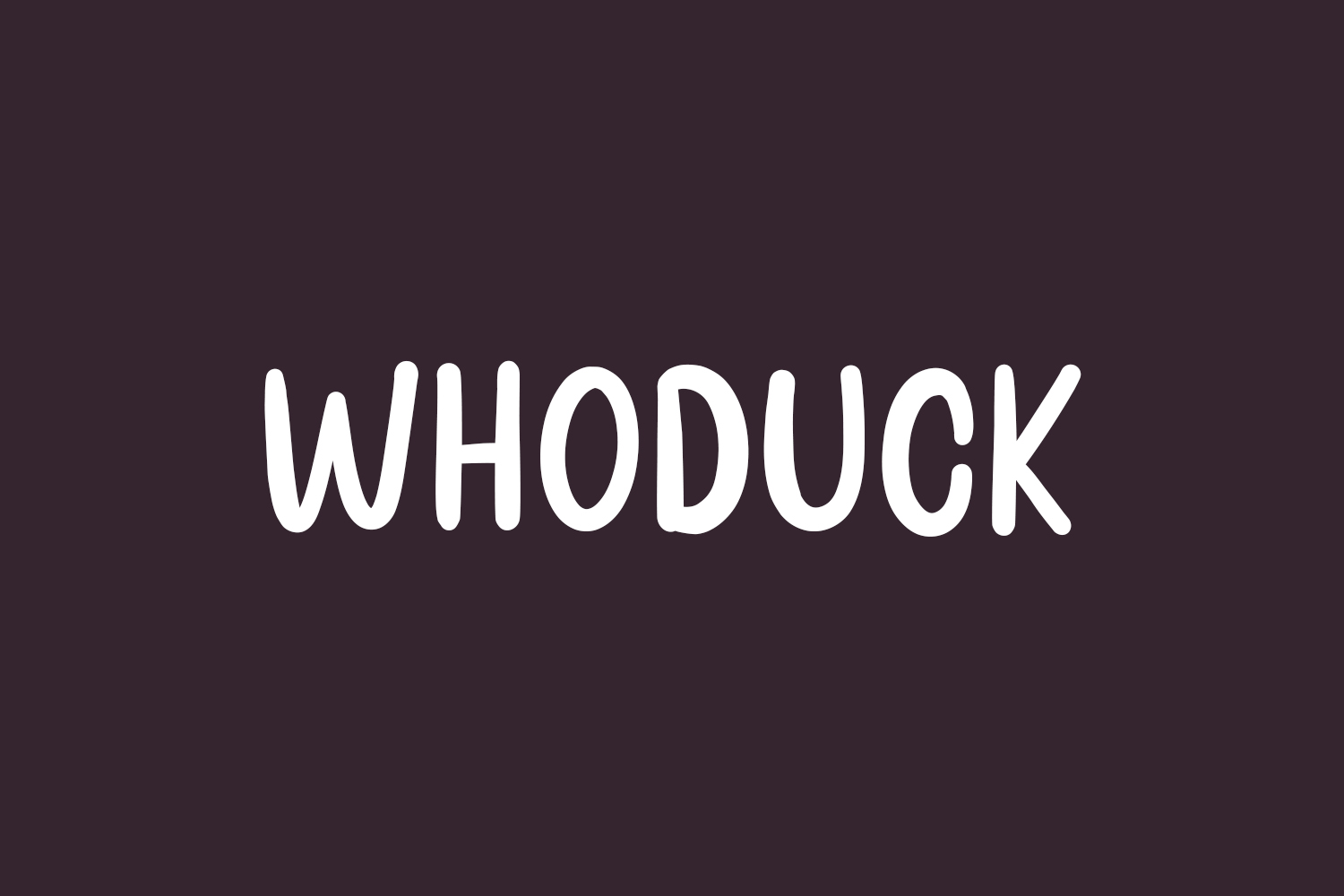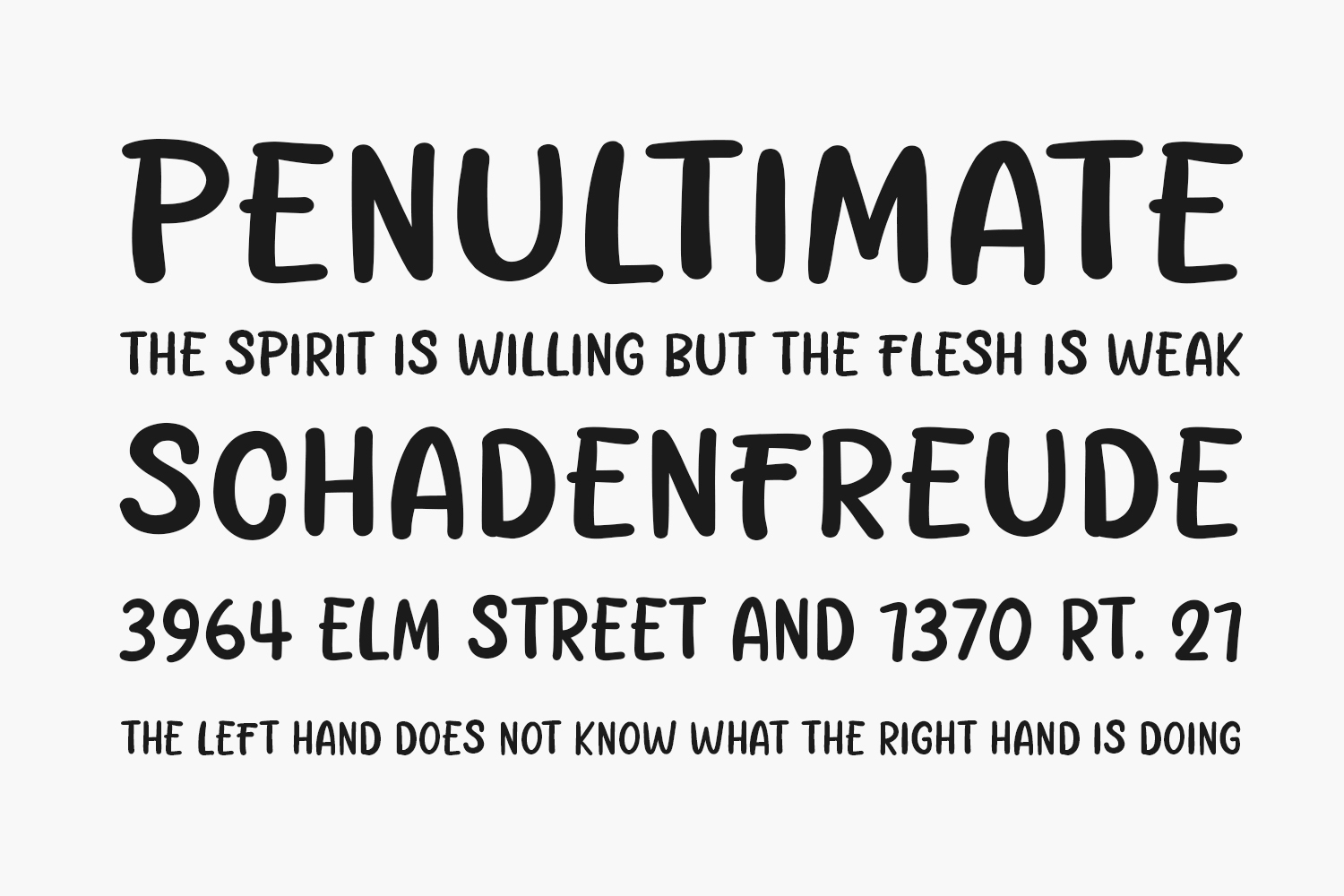
Whoduck Free Font is a contemporary and stylish display font crafted for posters, logos, magazines, book covers, banners, and beyond! Discover the charm of this remarkable font and infuse your designs with its unique flair. With its adaptability to a vast range of projects, incorporating Whoduck into your creative arsenal will undoubtedly make your ideas pop. Download the font for free if you need it for personal or commercial use.